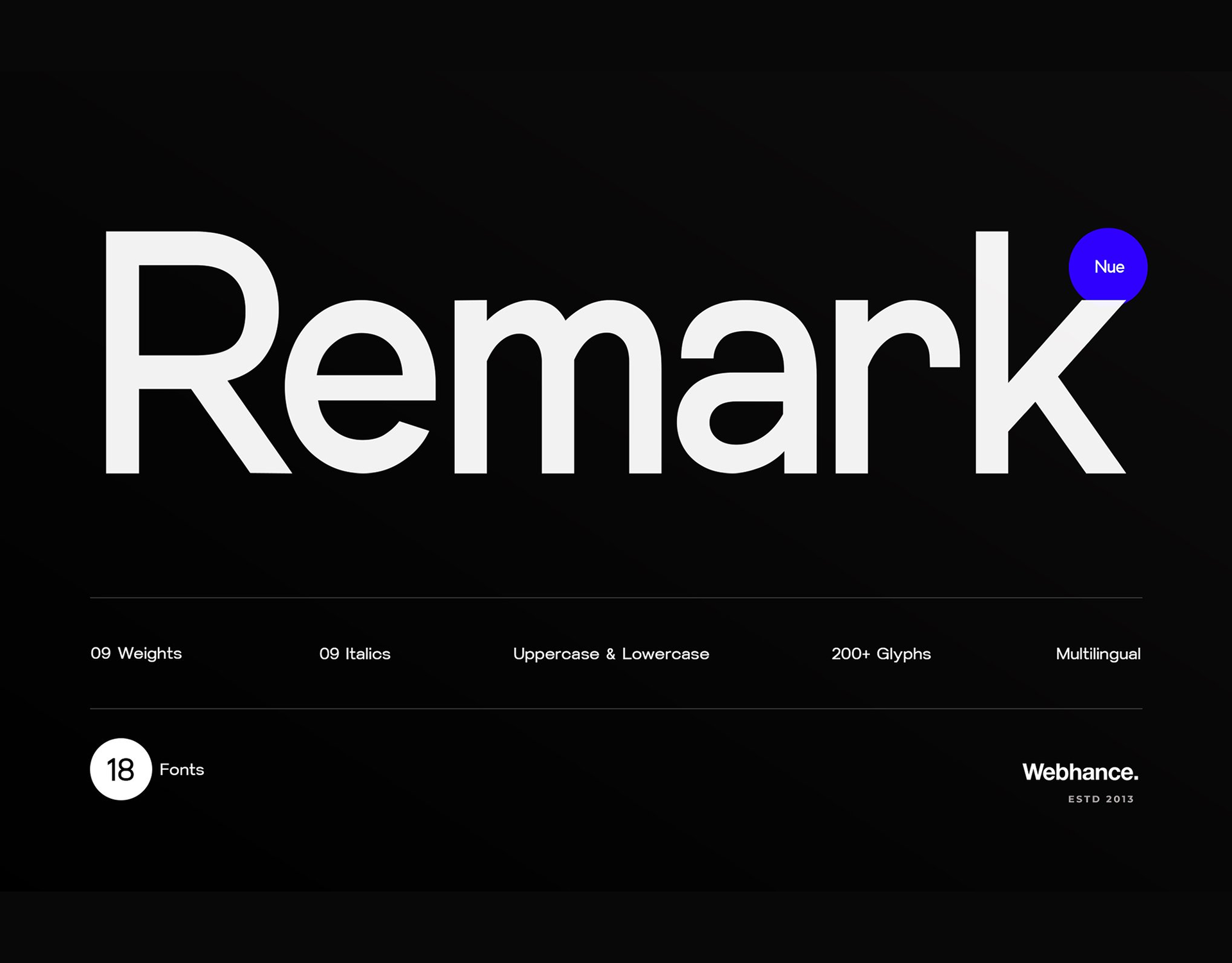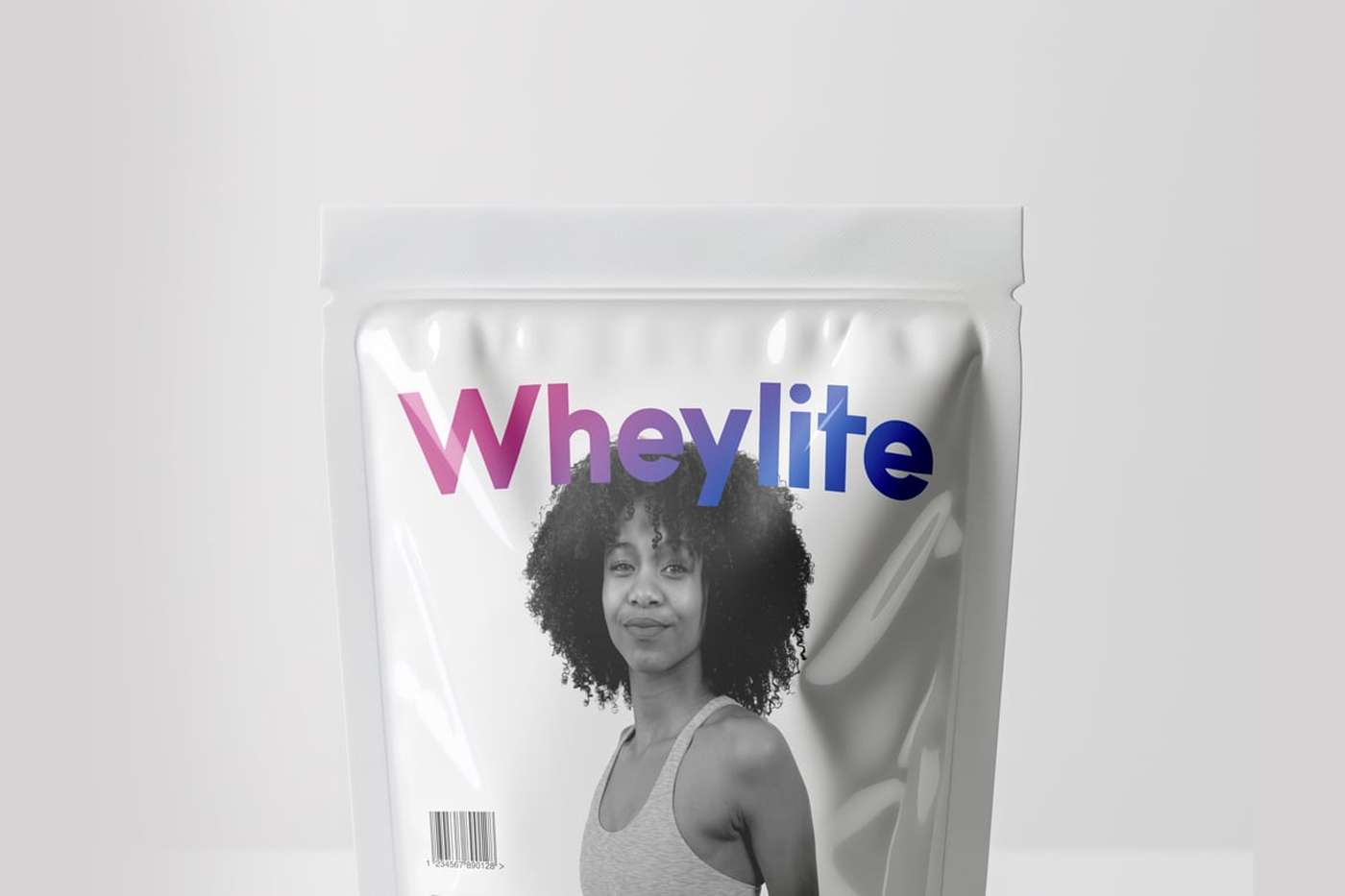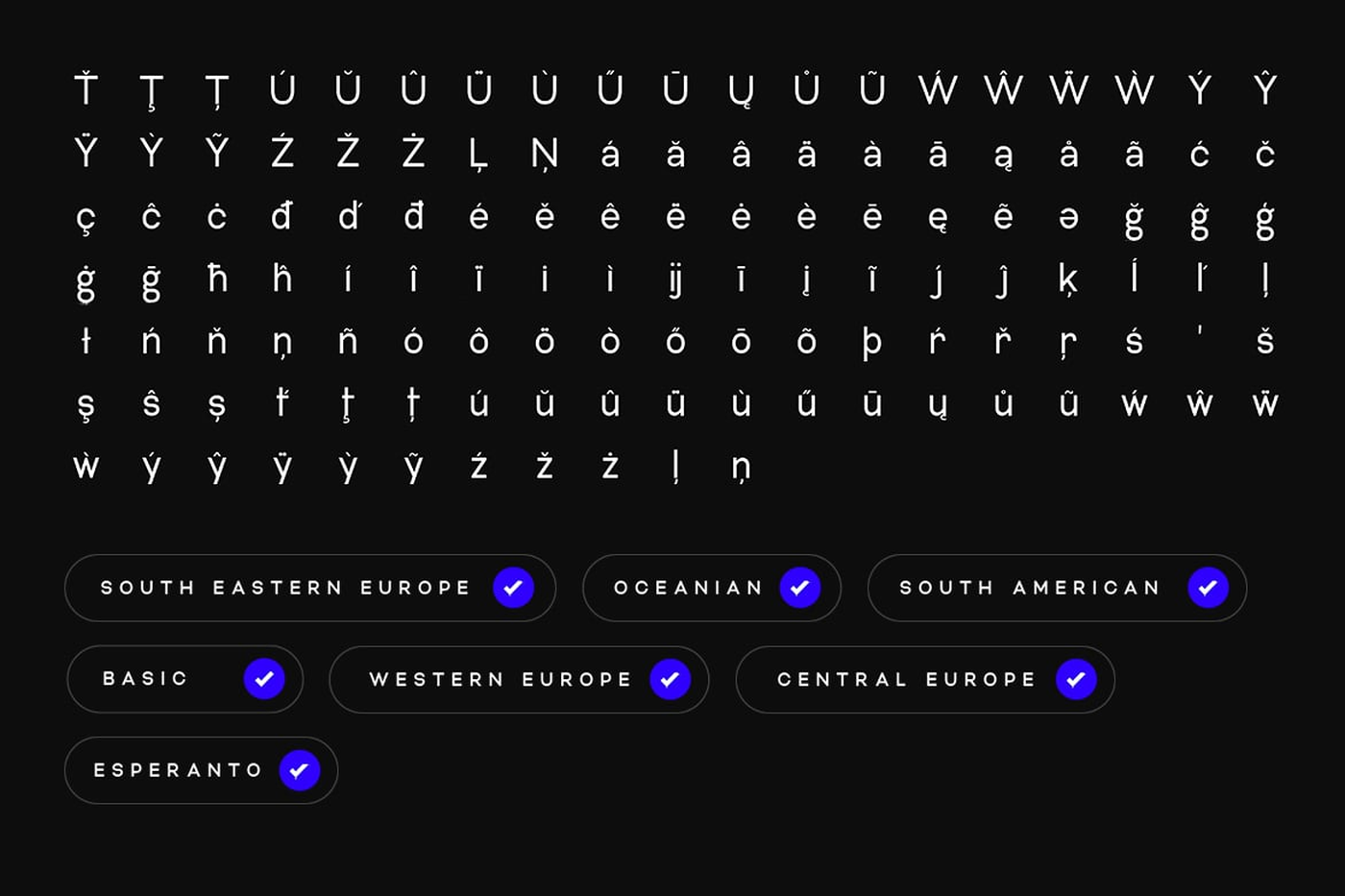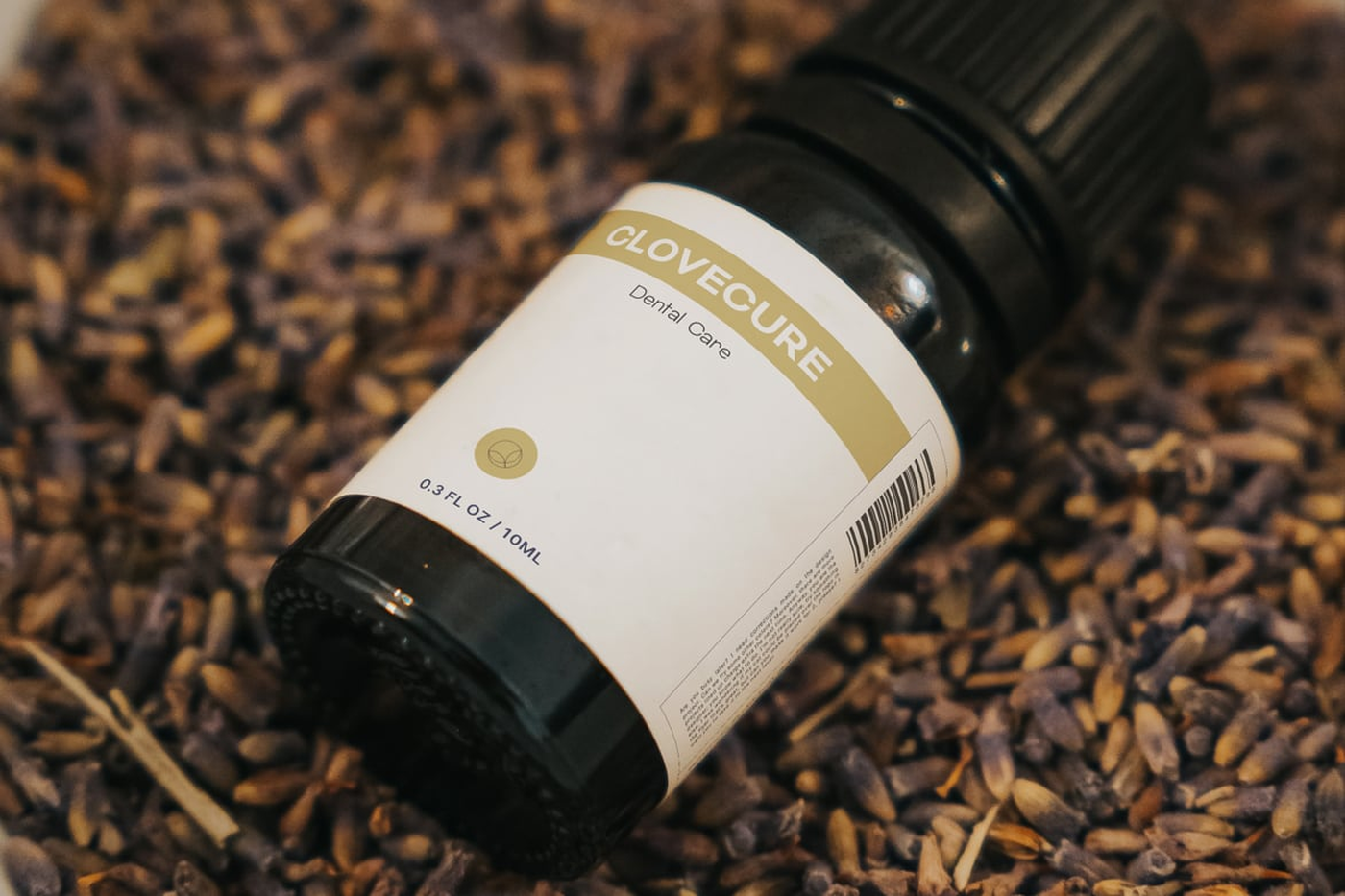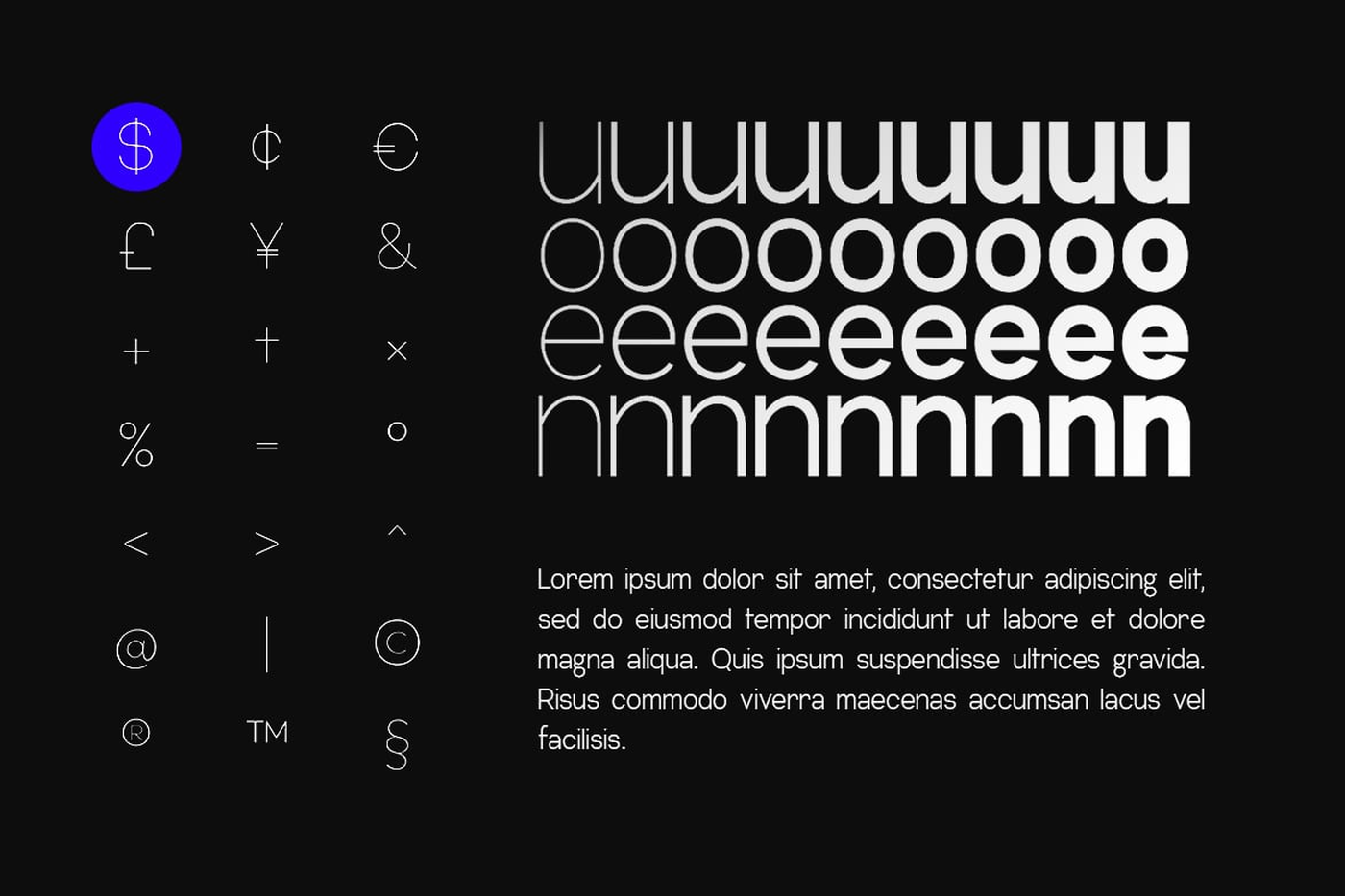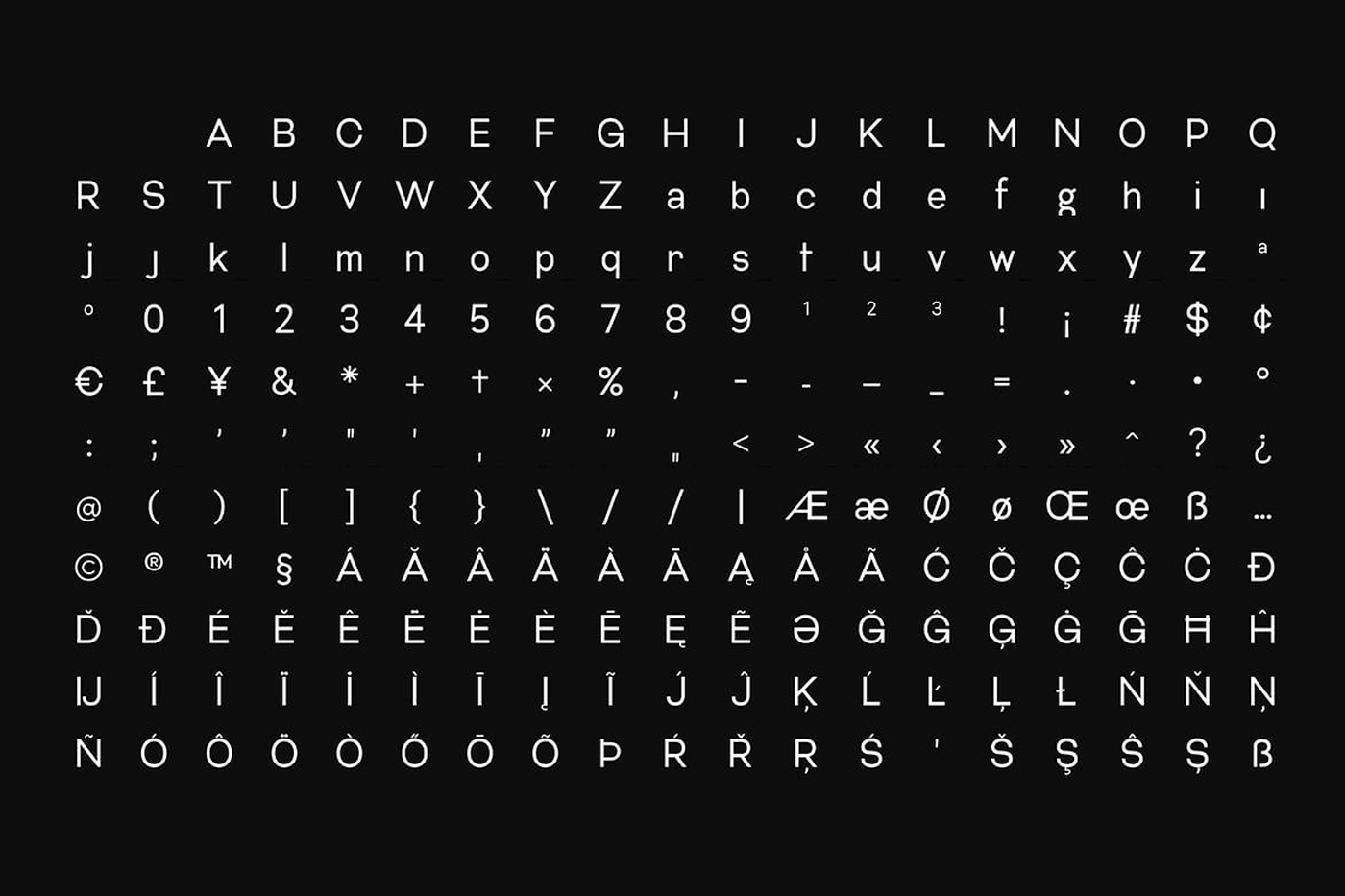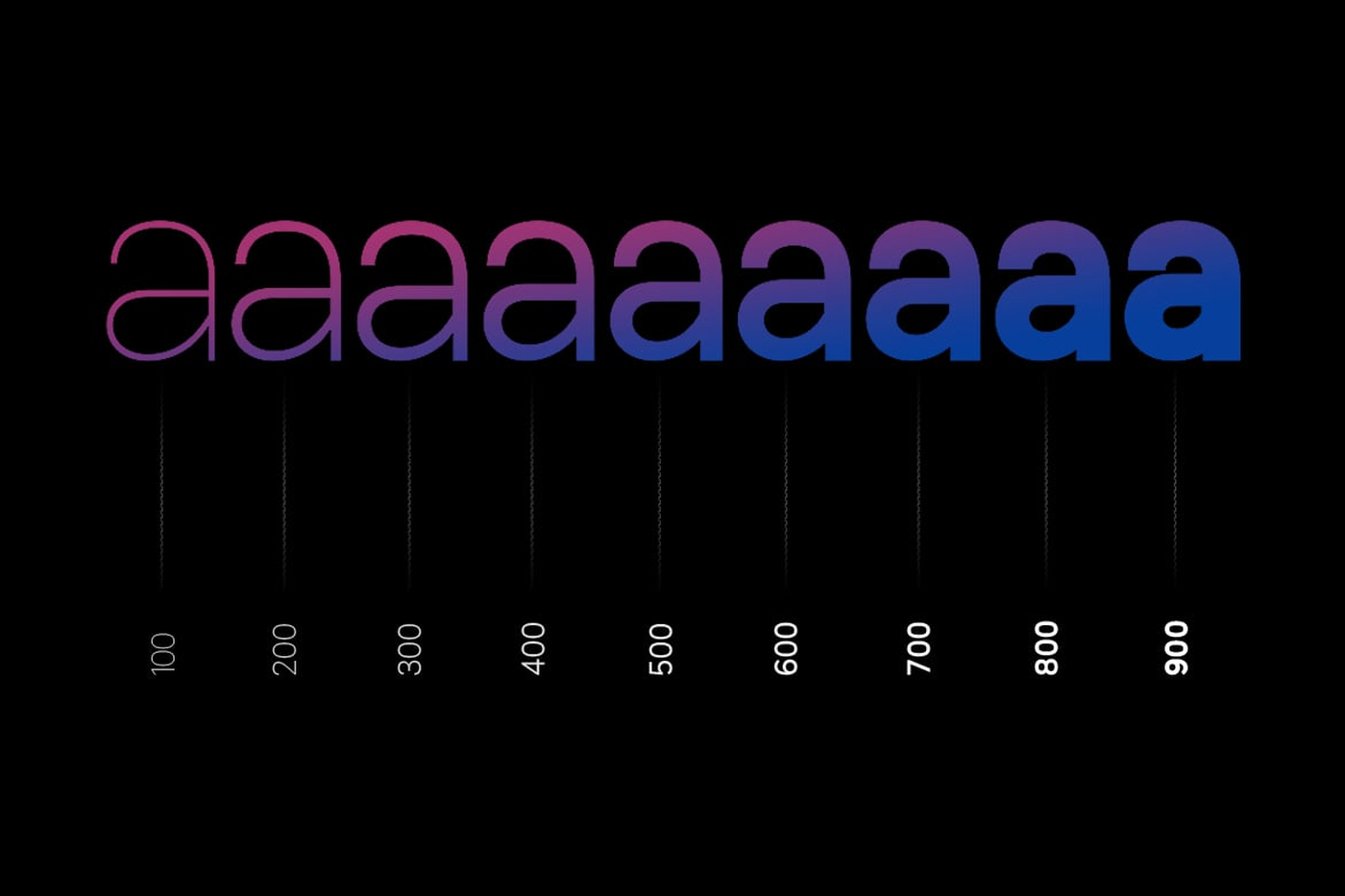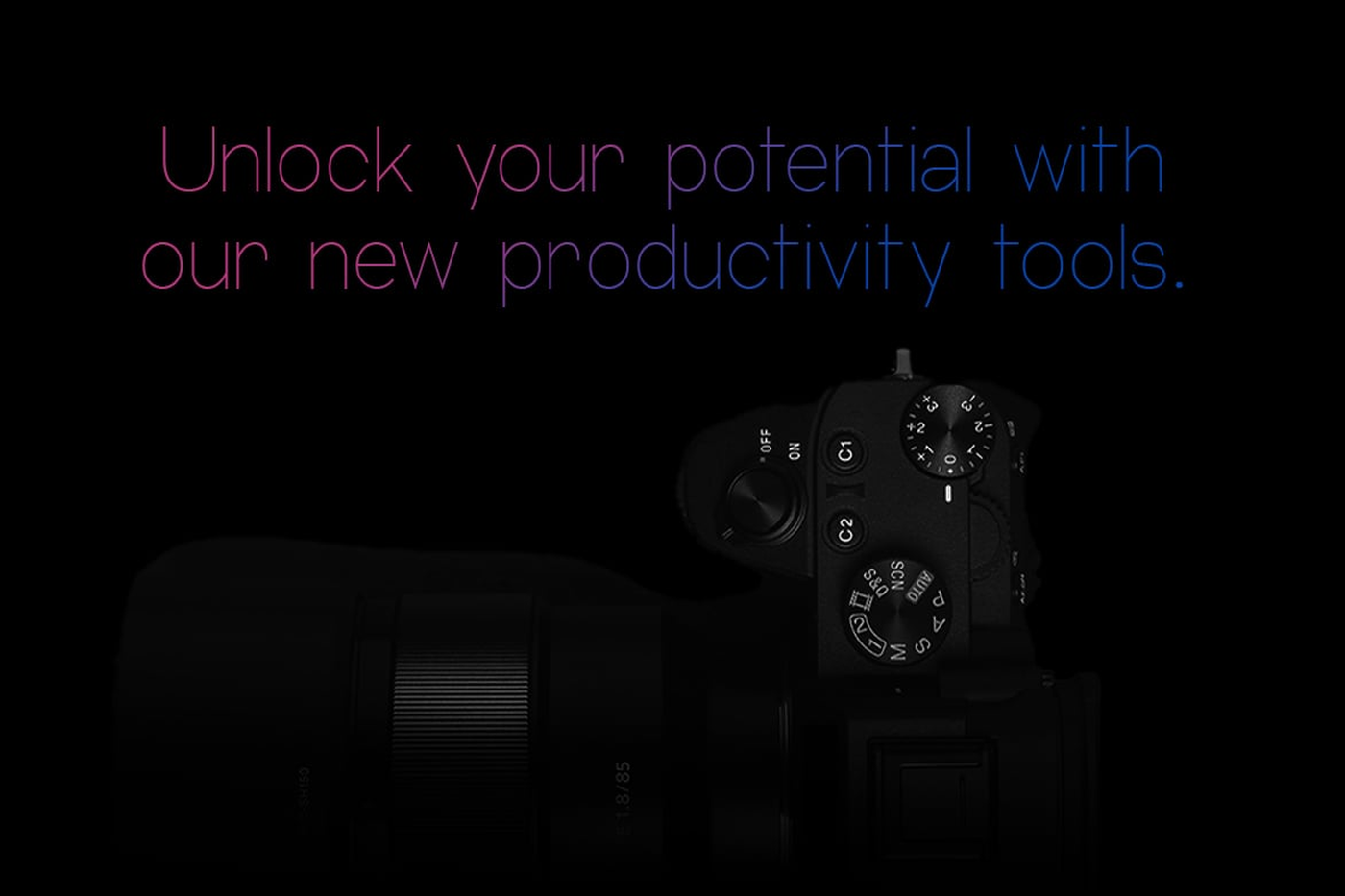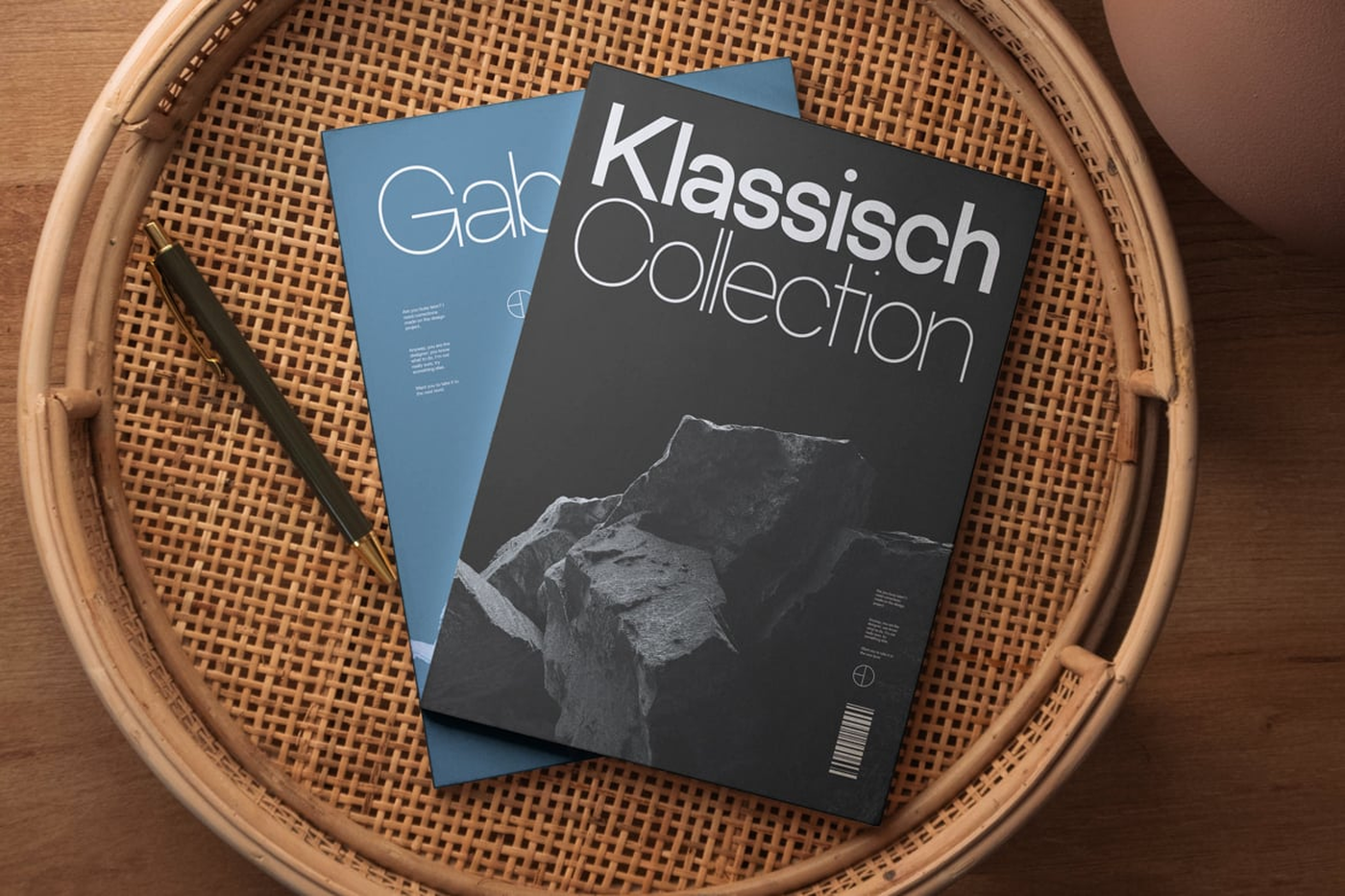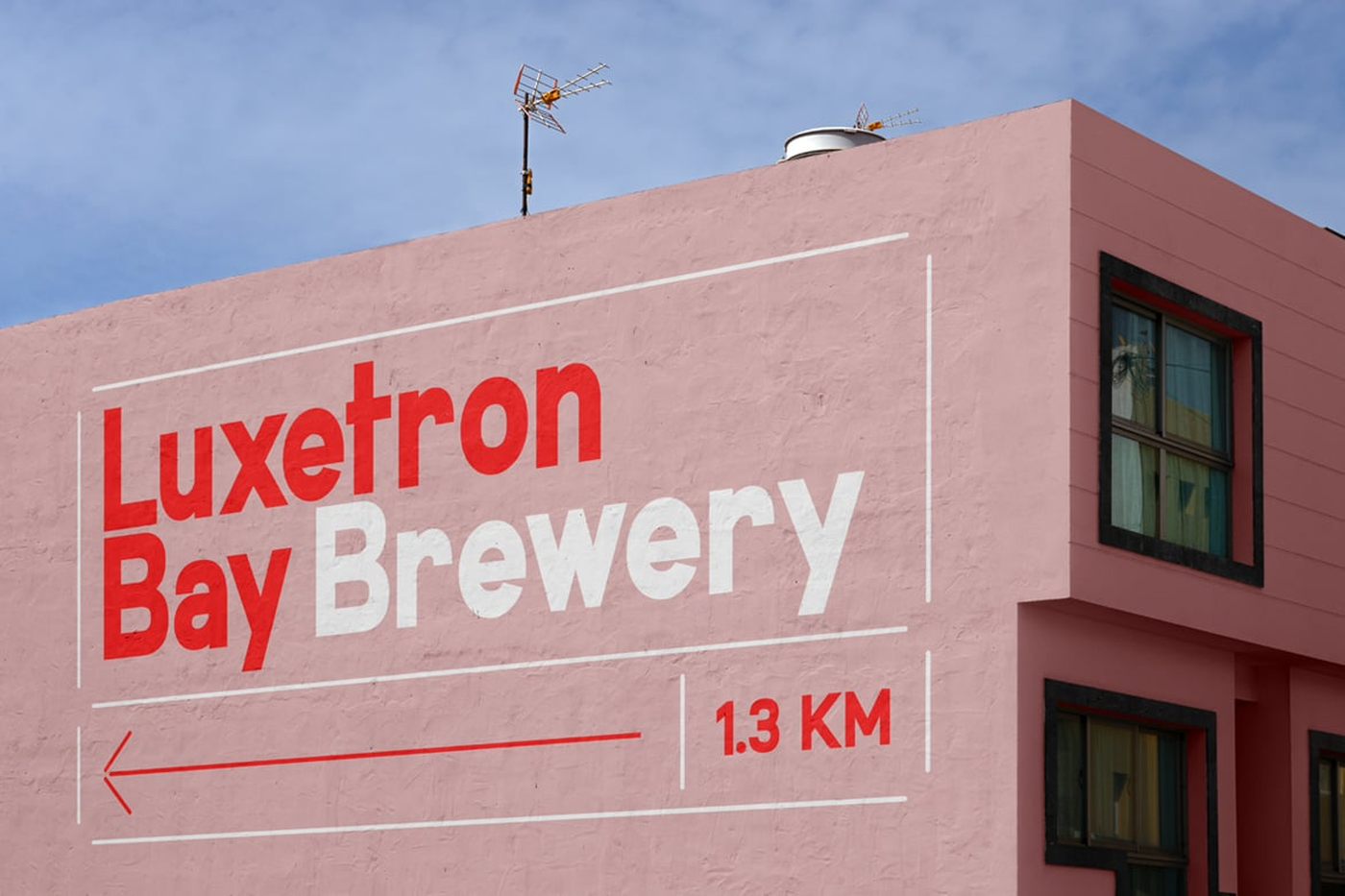
Remark Nue - Sans Serif Font Family
Remark Nue is a versatile sans-serif font family meticulously designed to elevate your design projects with its modern and refined aesthetic. With 9 thoughtfully crafted weights—ranging from the subtle Thin to the robust Heavy—alongside their matching italics, Remark Nue provides a comprehensive set of 18 fonts to cater to all your design needs. This font is ideal for branding, logo creation, web design, poster design, social media visuals, text for reels, video infographics, YouTube thumbnails, and more. Each weight is carefully optimized for both print and digital media, ensuring smooth integration across various platforms. Enhance your designs with Remark Nue's clean lines, superior legibility, and contemporary elegance.